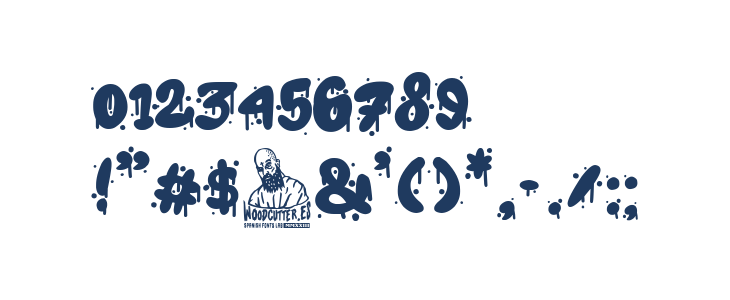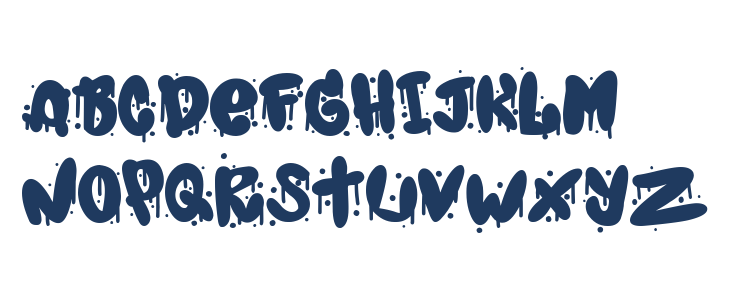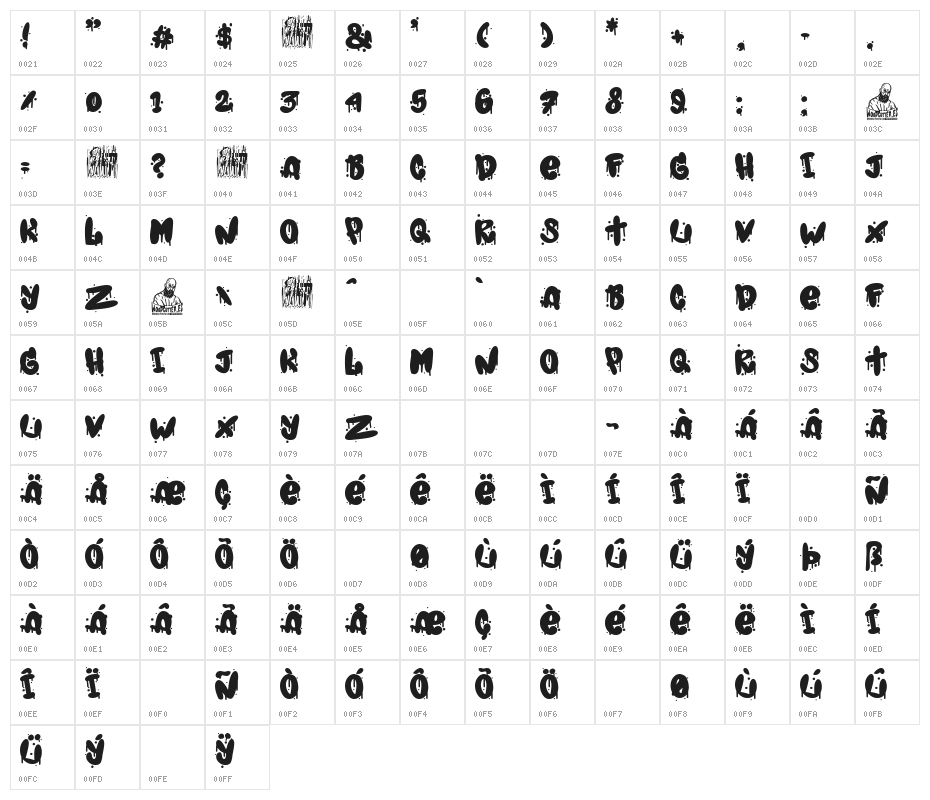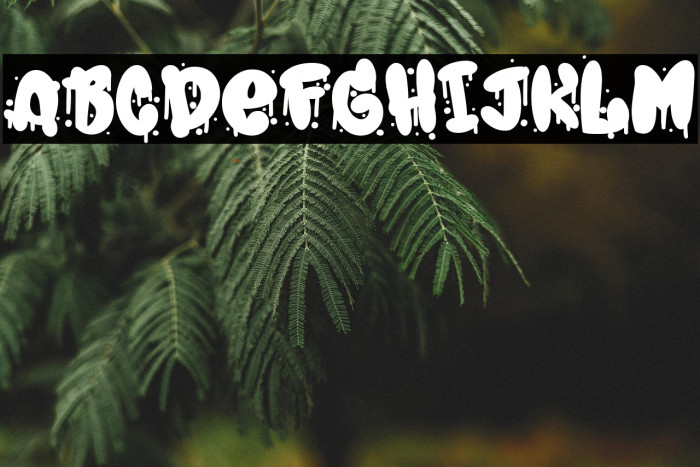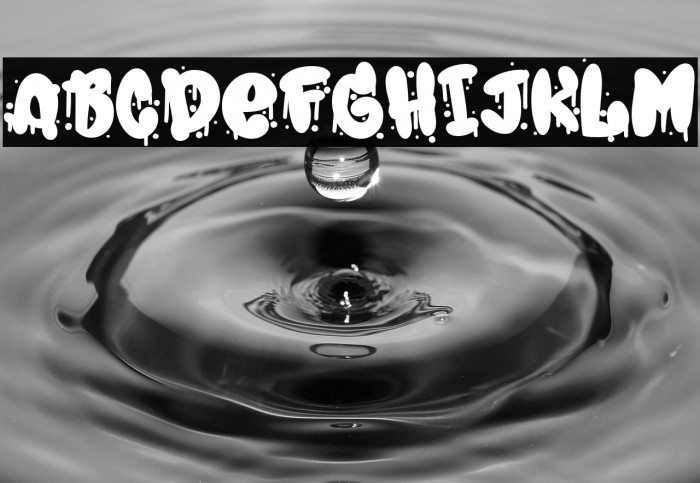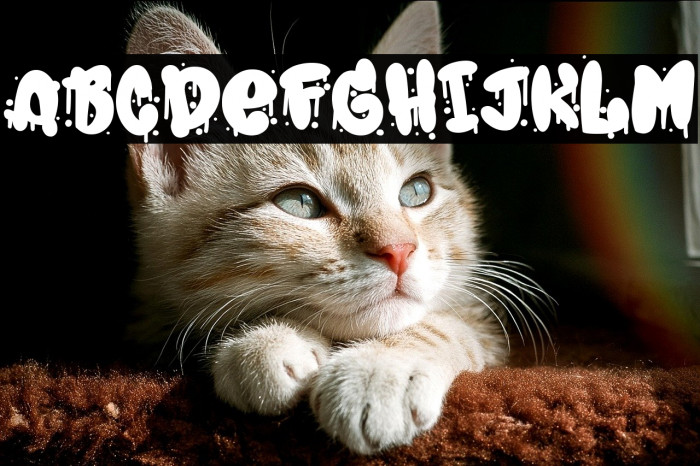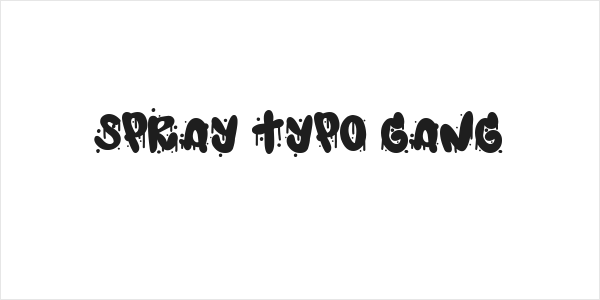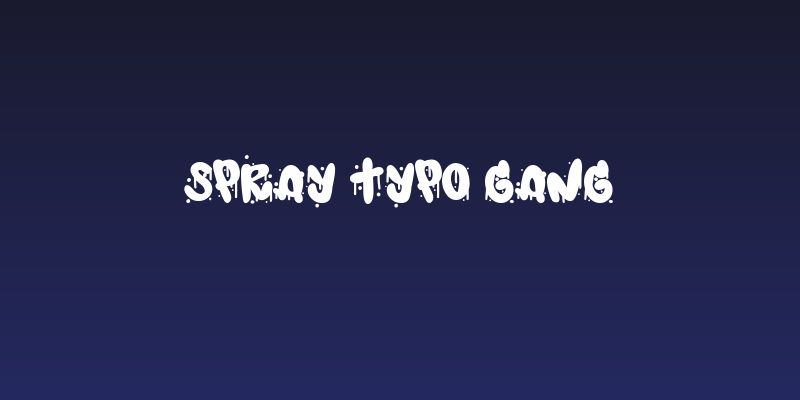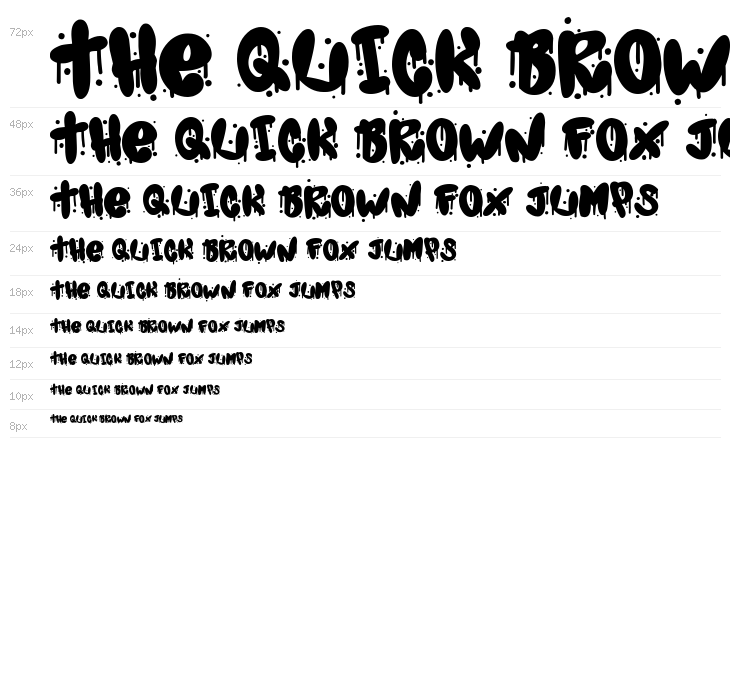
Spray Typo Gang Font
Spray Typo Gang Description
A bold, graffiti-inspired display font with rounded, bubbly letterforms and dripping paint effects, evoking the look of spray paint on a wall. The characters are playful and irregular, with varying heights and widths, and feature decorative splatters and drips throughout.
| Overall Style | Decorative, Urban, Graffiti |
| Proposed Projects | Street art posters, urban-themed event flyers, music album covers, youth-oriented branding, skate or hip-hop merchandise. |